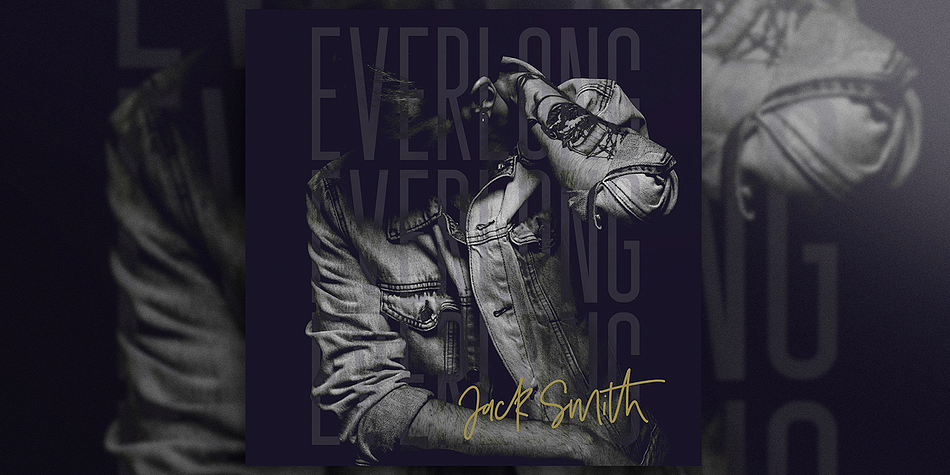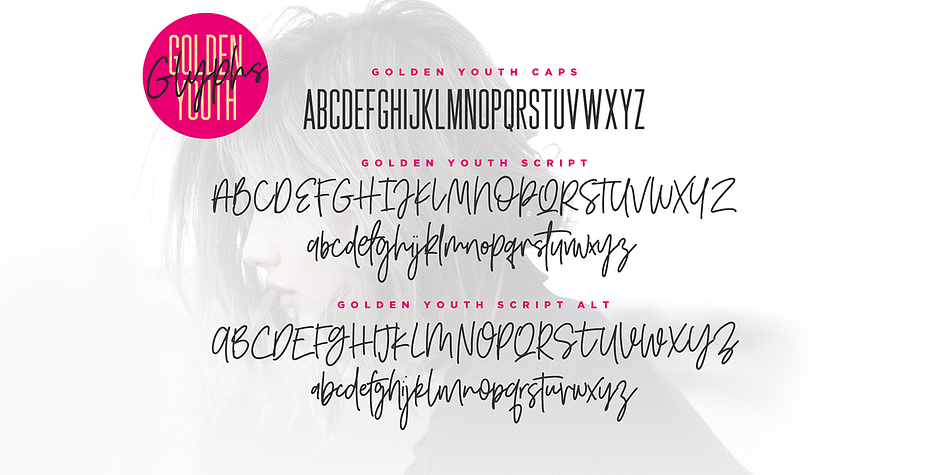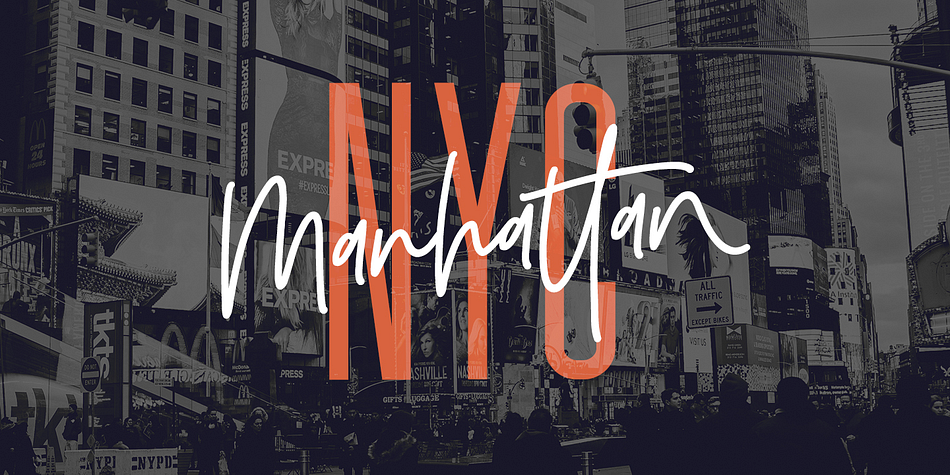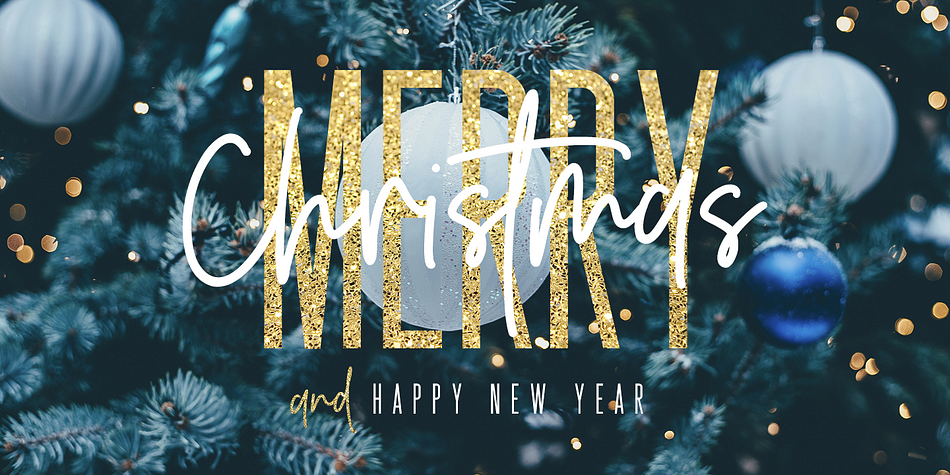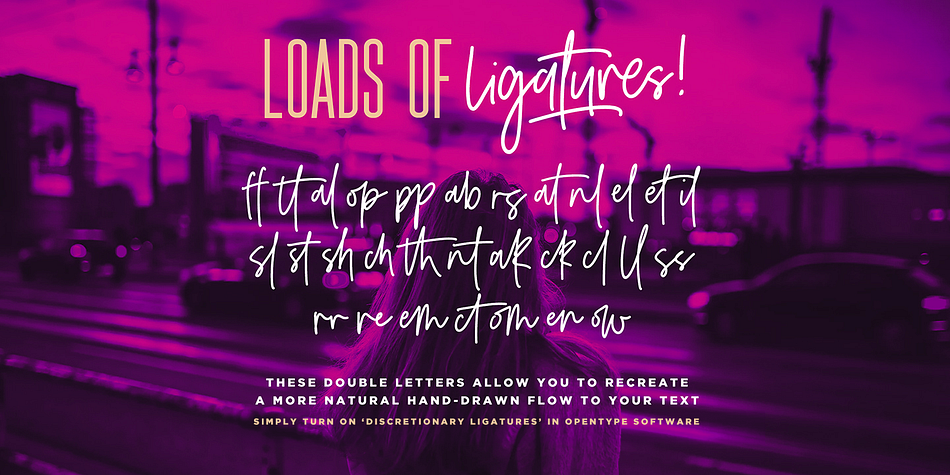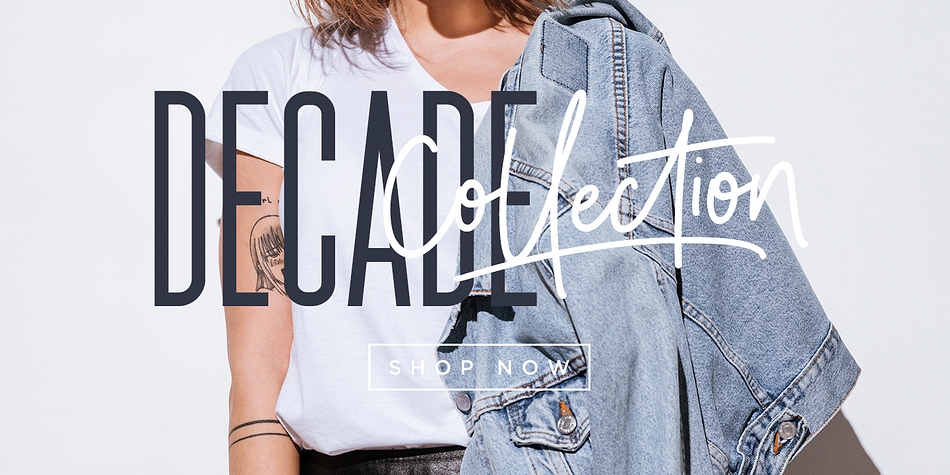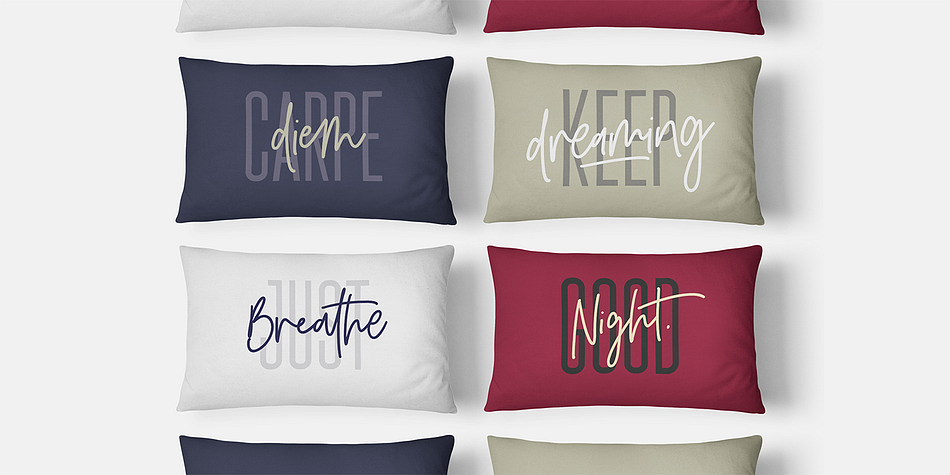
Designed by Sam Parrett, Golden Youth is a display sans and script font family. This typeface has two styles and was published by Set Sail Studios.
Introducing the Golden Youth Font Duo; A stylish & modern harmony of sans & script typefaces. With a tall condensed sans-serif font and a free-flowing script companion, Golden Youth offers beautiful contrasting typography for a diversity of design projects, including; logos & branding, packaging design, social media posts, advertisements & product designs.
Golden Youth consists of 2 font files, designed to work as a perfect companions or simply as strong standalone typefaces;
Golden Youth Script • A clean, free-flowing, monoline script font containing upper & lowercase characters, numerals and a large range of punctuation. Also includes a full set of alternate characters and a large range of ligatures, accessible by turning on ‘Stylistic Alternates’ and ‘Discretionary Ligatures’ using OpenType software.
Golden Youth Caps • A tall condensed sans-serif font containing uppercase only characters, numerals and a large range of punctuation. Creates a perfect pairing contrast with the Golden Youth Script fonts.